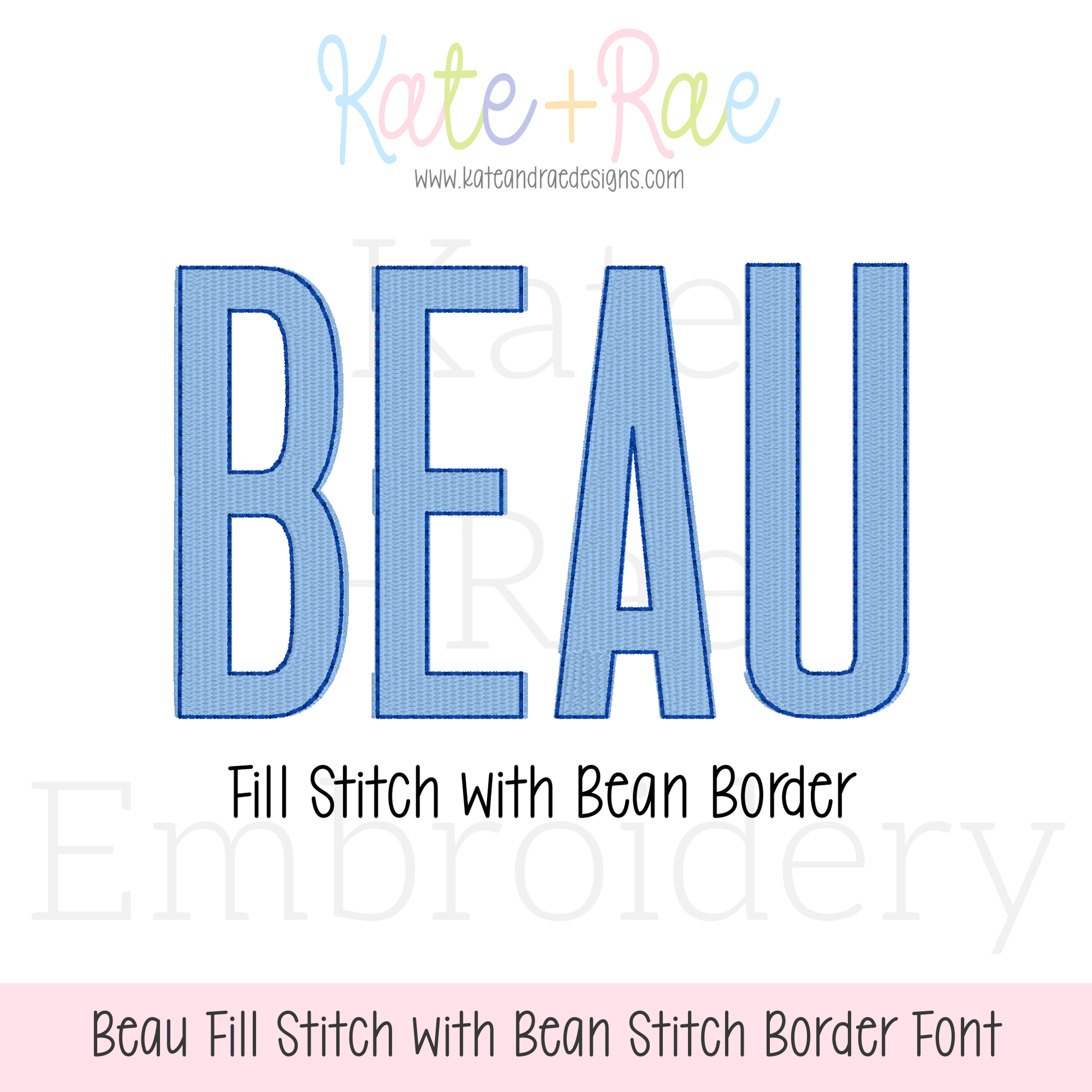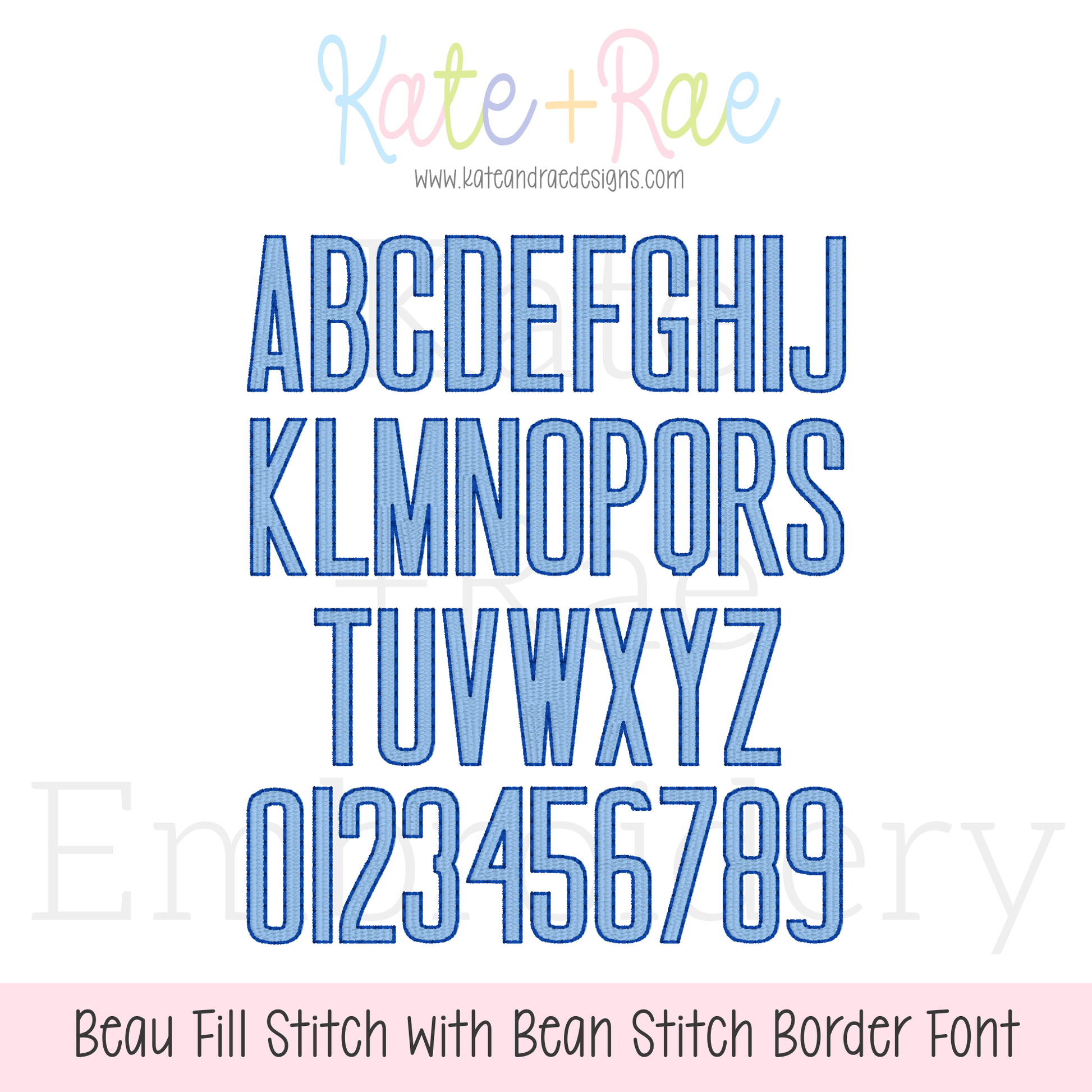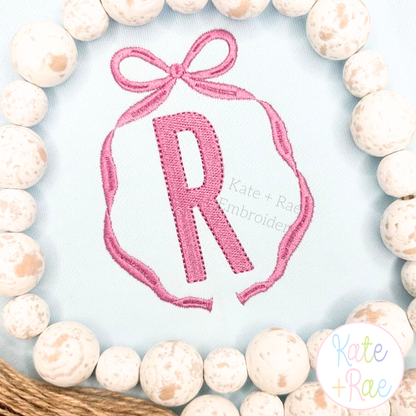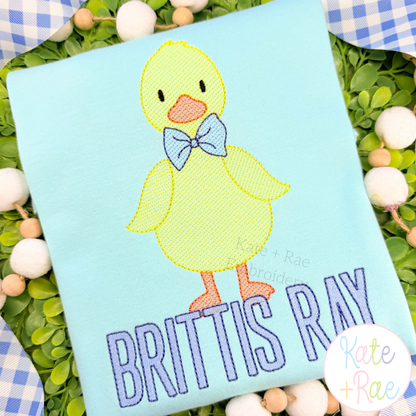
Beau Fill Stitch with Bean Stitch Border Embroidery Font
Meet Beau, a bold fill stitch font with a bean stitch border! Personalize names, monograms, sweatshirts, and kids' outfits with classic style.